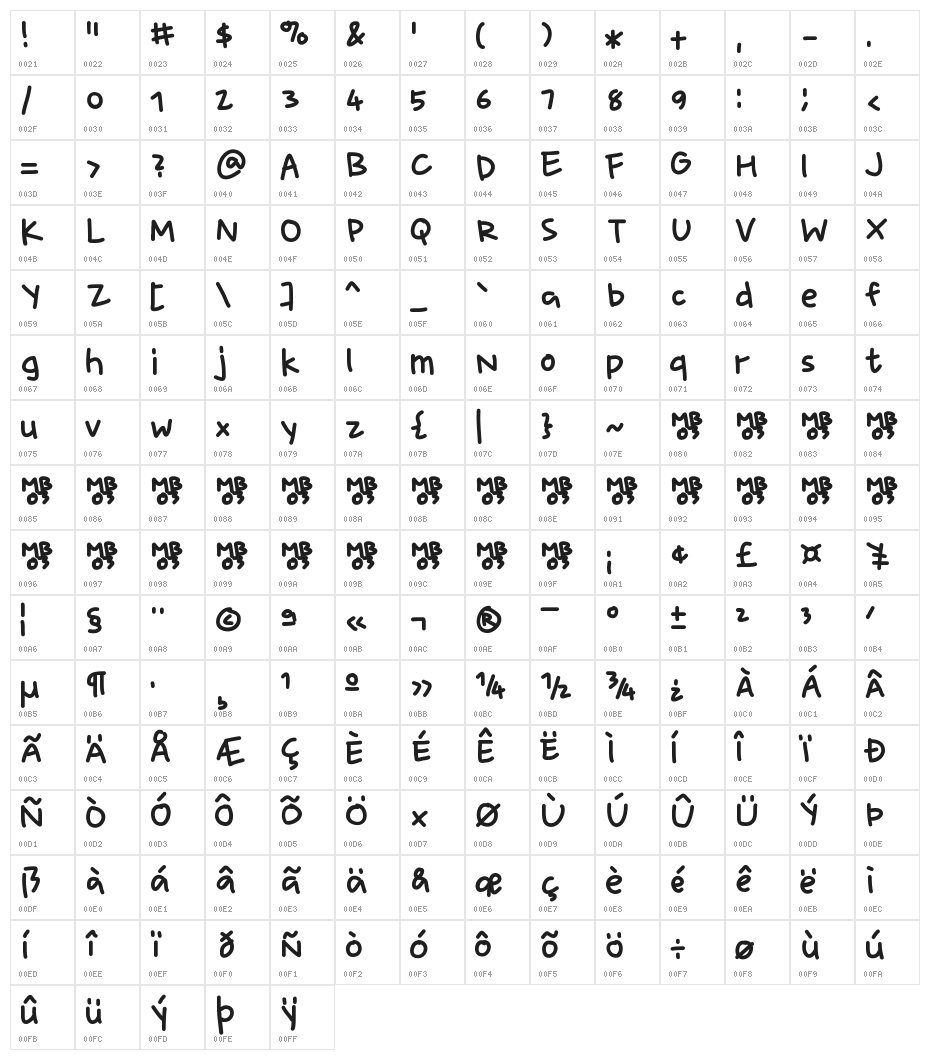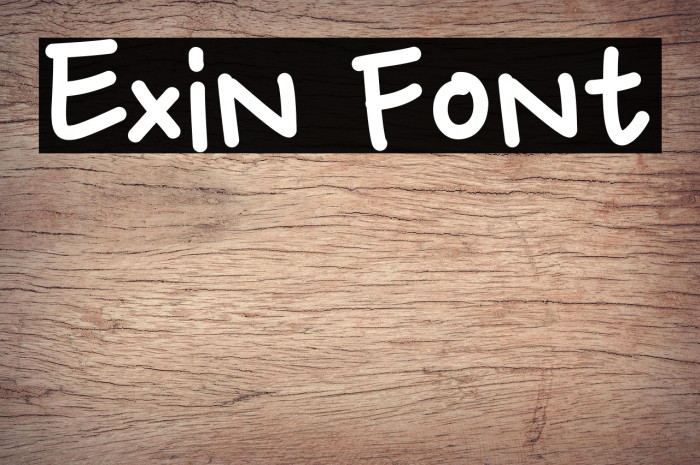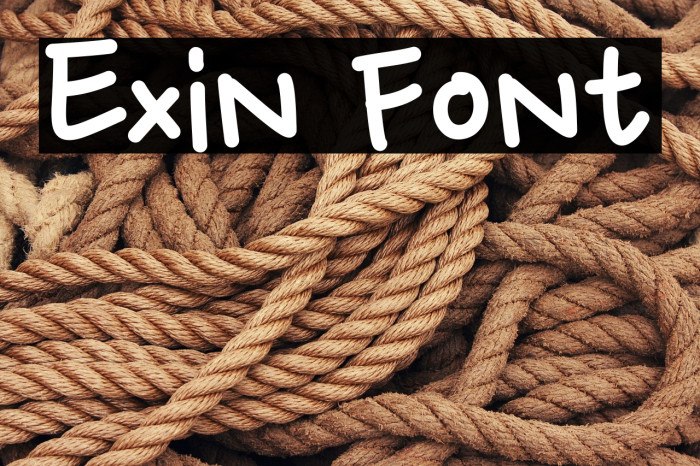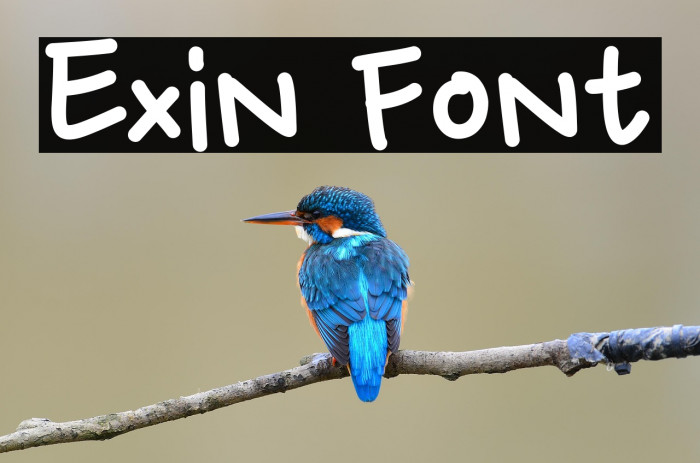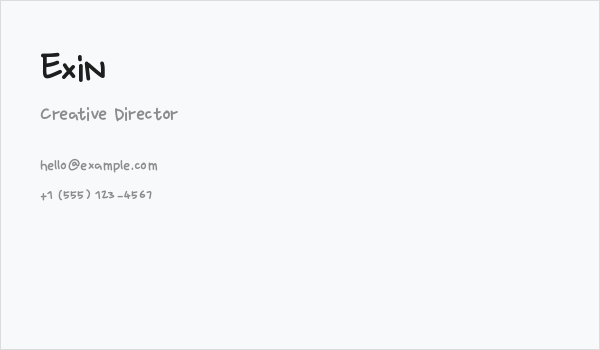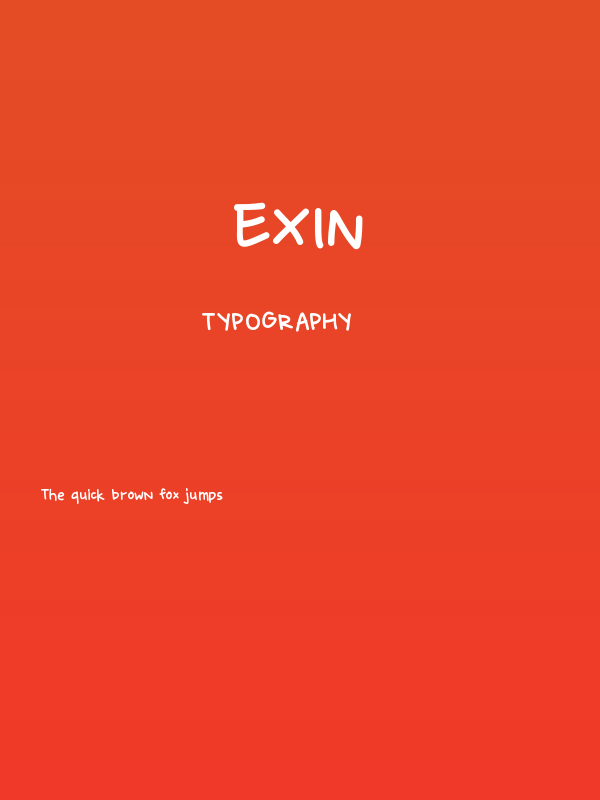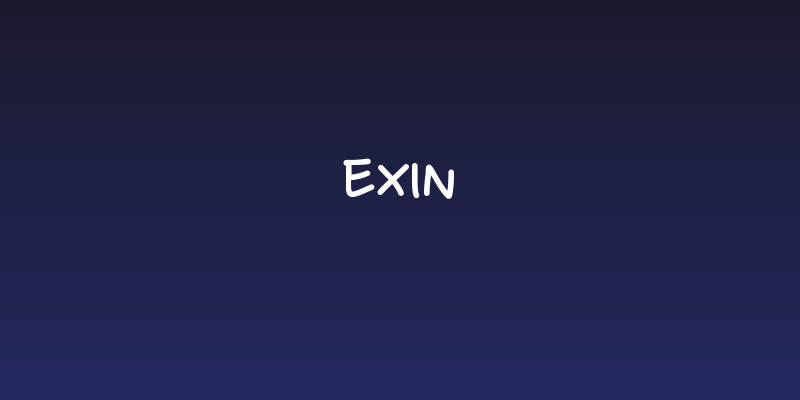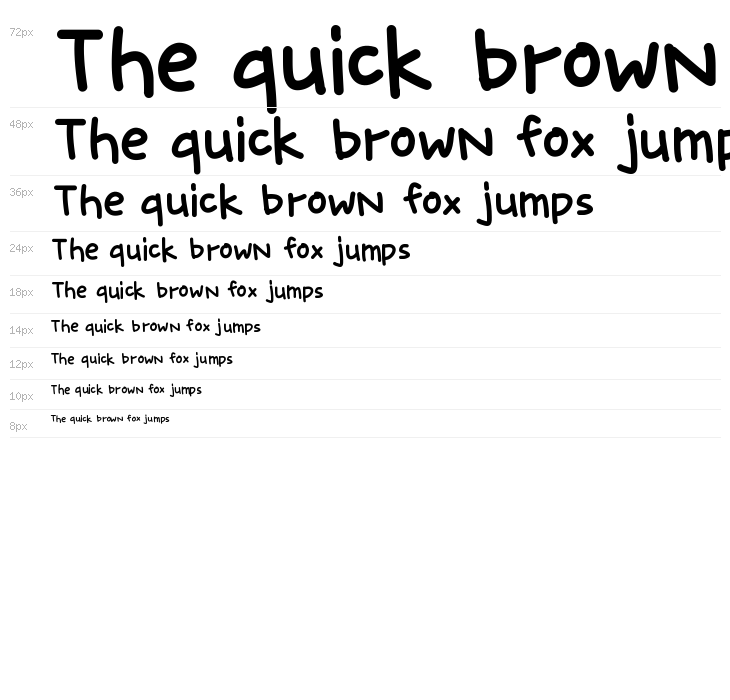
Exin Font
Exin Description
This playful and informal font features a handwritten style with rounded edges and a casual appearance. The letters are slightly irregular, giving it a friendly and approachable feel. The strokes are consistent in thickness, providing a uniform look across all characters. The font includes both uppercase and lowercase letters, numerals, and a variety of special characters, making it versatile for different uses. Its relaxed style makes it ideal for projects that require a personal touch or a fun, lighthearted vibe.
| Proposed Projects | Ideal for children's books, greeting cards, casual branding, and social media graphics. |